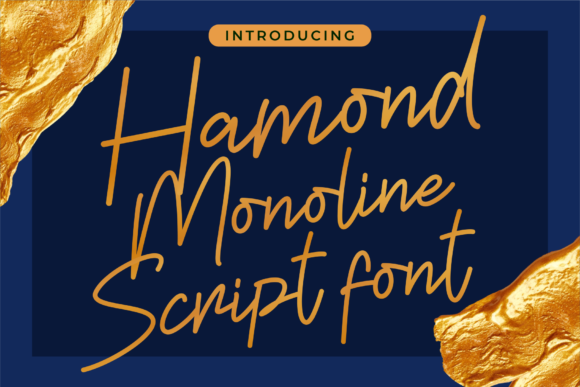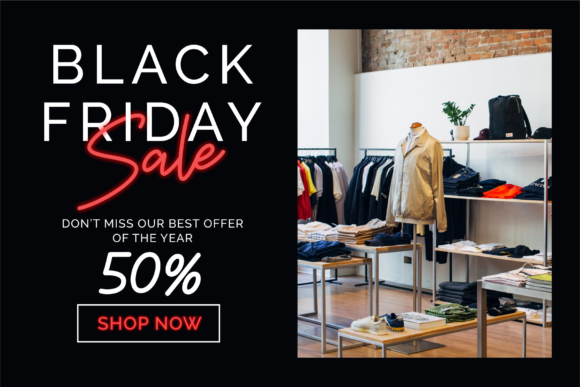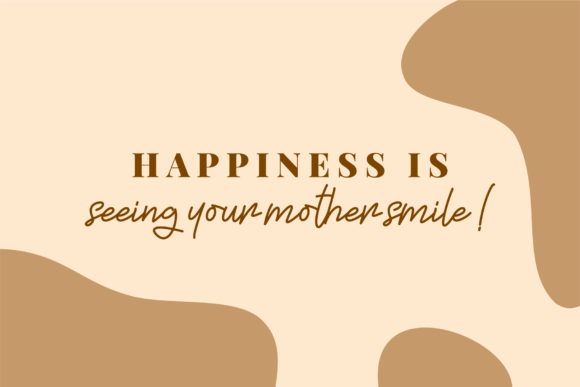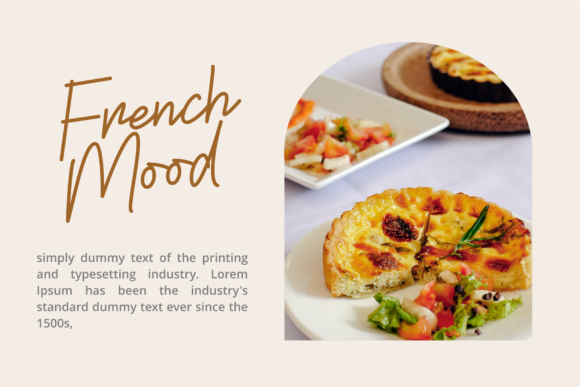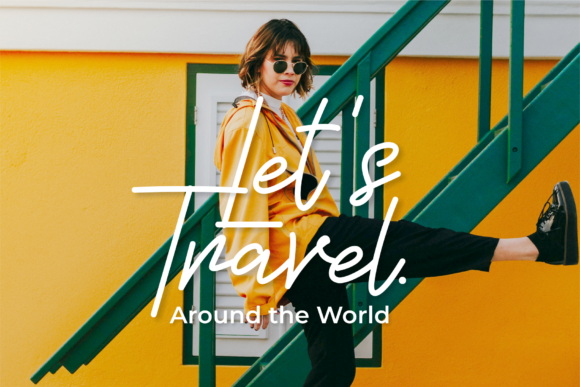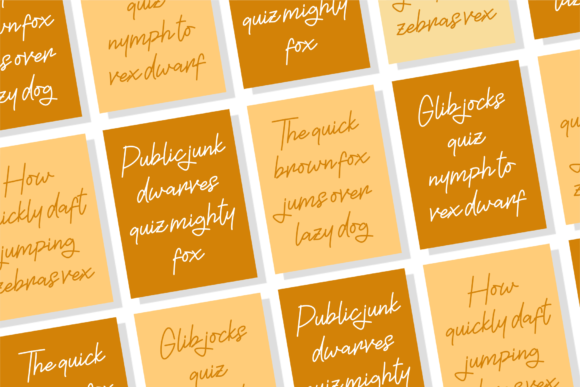
Discover the Elegance of Hamond Font: A Delicate Handwritten Typeface
Are you a designer or crafter looking for a font that can add a touch of sophistication and elegance to your creative projects? Look no further than Hamond Font, a delicate, elegant, and flowing handwritten font that is sure to make your designs come alive.
What is Hamond Font?
Hamond Font is a beautiful, handwritten typeface that is characterized by its delicate and flowing lines. The font features well-balanced characters that are carefully crafted to provide a sense of elegance and refinement. Whether you’re working on a logo, a poster, a wedding invitation, or any other design project, Hamond Font is the perfect choice.
Key Features of Hamond Font
- Delicate and elegant design: Hamond Font features a delicate and elegant design that is perfect for adding a touch of sophistication to your designs.
- Flowing handwritten style: The font has a flowing handwritten style that gives it a natural and organic feel.
- Well-balanced characters: The characters in Hamond Font are carefully crafted to provide a sense of balance and harmony, making it easy to read and visually appealing.
- Versatile: Hamond Font matches a wide pool of designs, making it a versatile font that can be used for a variety of projects.
Why Choose Hamond Font?
There are many reasons why designers and crafters choose Hamond Font for their projects. Here are a few:
- Adds elegance to your designs: Hamond Font is the perfect choice if you want to add a touch of elegance and sophistication to your designs.
- Easy to read: The font is easy to read, making it perfect for body text, headings, and titles.
- Unique and creative: Hamond Font is a unique and creative font that can help you stand out from the crowd.
- Perfect for a variety of projects: Whether you’re working on a logo, a poster, a wedding invitation, or any other design project, Hamond Font is the perfect choice.
How to Use Hamond Font in Your Designs
Using Hamond Font in your designs is easy. Here are a few tips to get you started:
- Pair it with other fonts: Hamond Font pairs well with other fonts, so feel free to experiment with different combinations to find the perfect look for your design.
- Use it for headings and titles: Hamond Font is perfect for headings and titles, but you can also use it for body text if you want to add a touch of elegance to your design.
- Experiment with different colors: Hamond Font looks great in a variety of colors, so don’t be afraid to experiment and find the perfect color for your design.
In conclusion, Hamond Font is a beautiful, delicate, and elegant handwritten font that is perfect for designers and crafters who want to add a touch of sophistication to their designs. With its well-balanced characters, flowing handwritten style, and versatility, Hamond Font is the perfect choice for a wide range of projects. So why not give it a try and see how it can make your designs come alive?